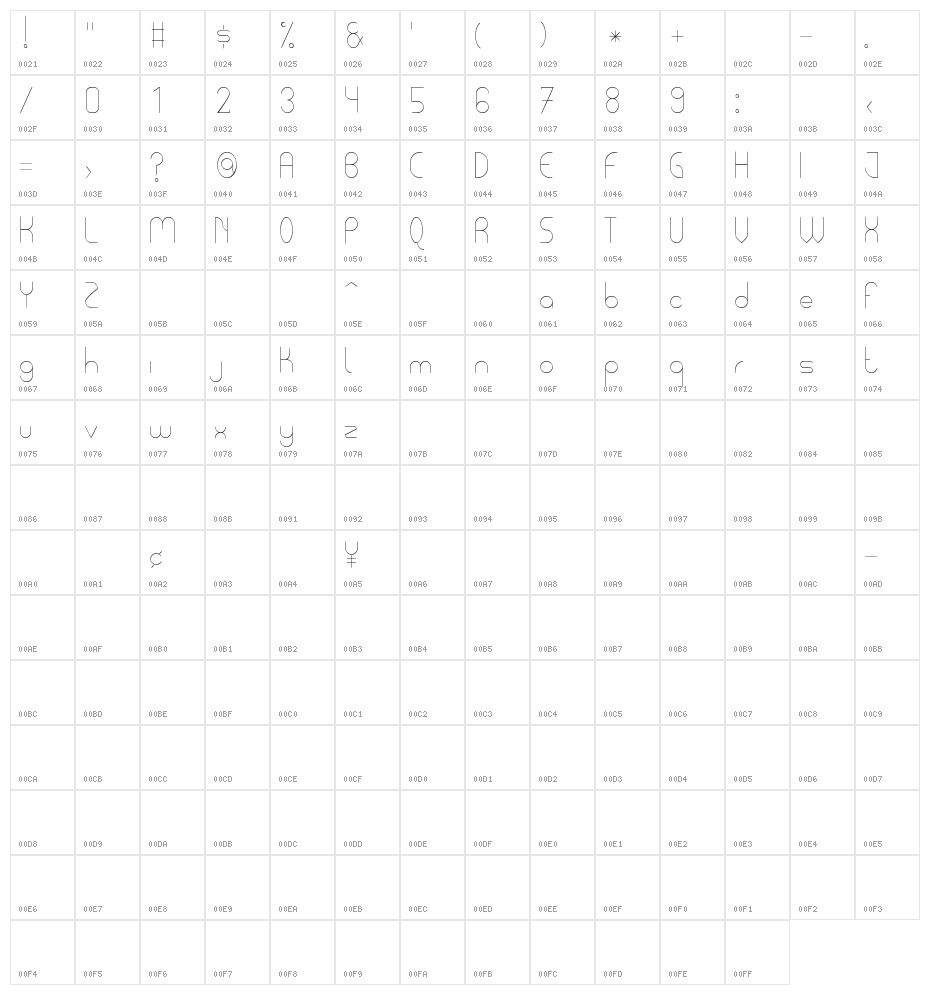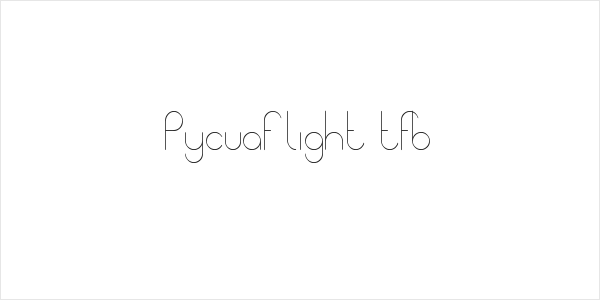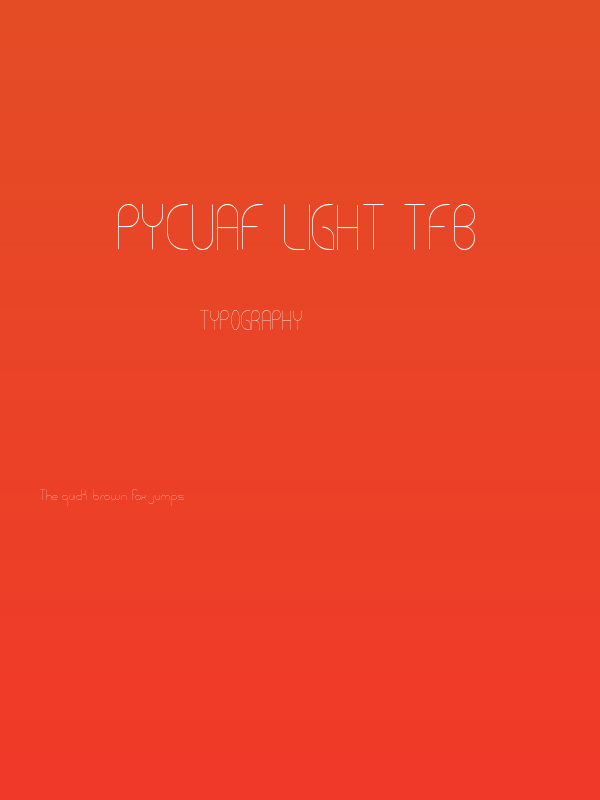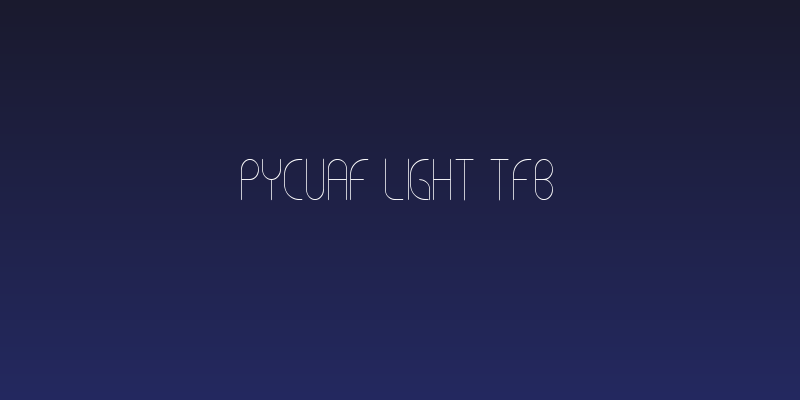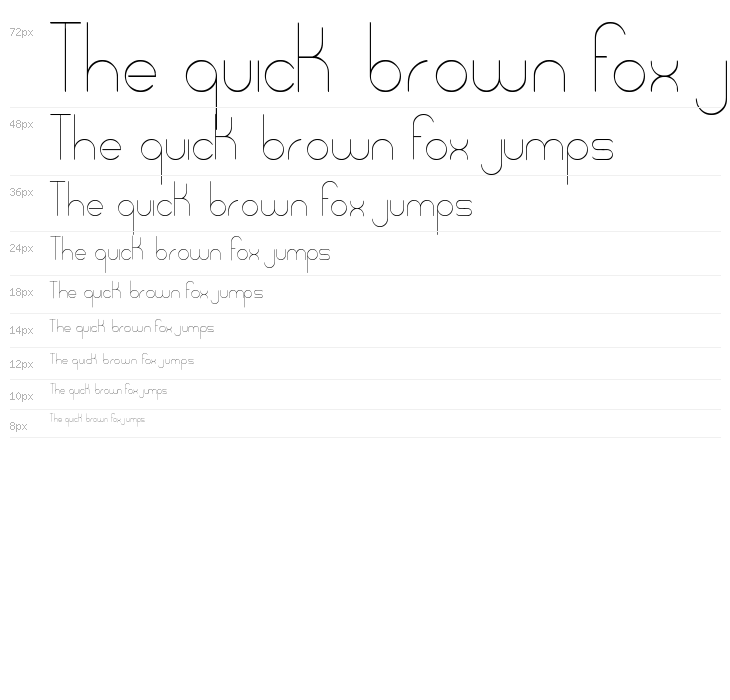
Pycuaf light tfb Font
Pycuaf light tfb Description
This font features a minimalist and modern design with thin, elongated strokes and a geometric structure. The characters are constructed with clean lines and a uniform stroke width, giving it a sleek and contemporary appearance. The uppercase letters are tall and narrow, while the lowercase letters maintain a consistent height, creating a harmonious balance. The numerals and special characters follow the same design principles, ensuring a cohesive look across all elements. This font's simplicity and elegance make it suitable for a variety of design applications.
| Width | Condensed |
| Use Case | Logos, Headlines, Posters |
| Proposed Projects | Ideal for modern branding, tech-related designs, minimalist posters, and sleek packaging. |